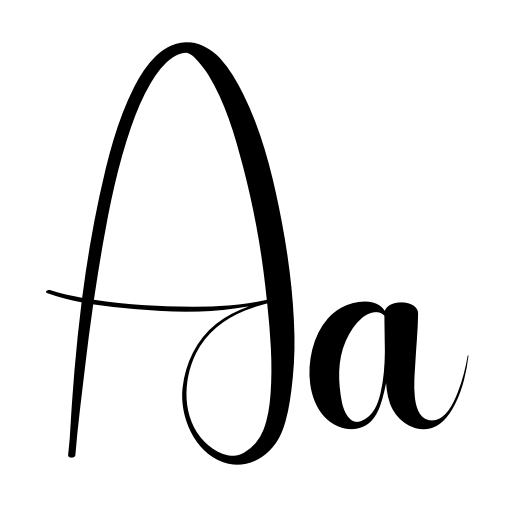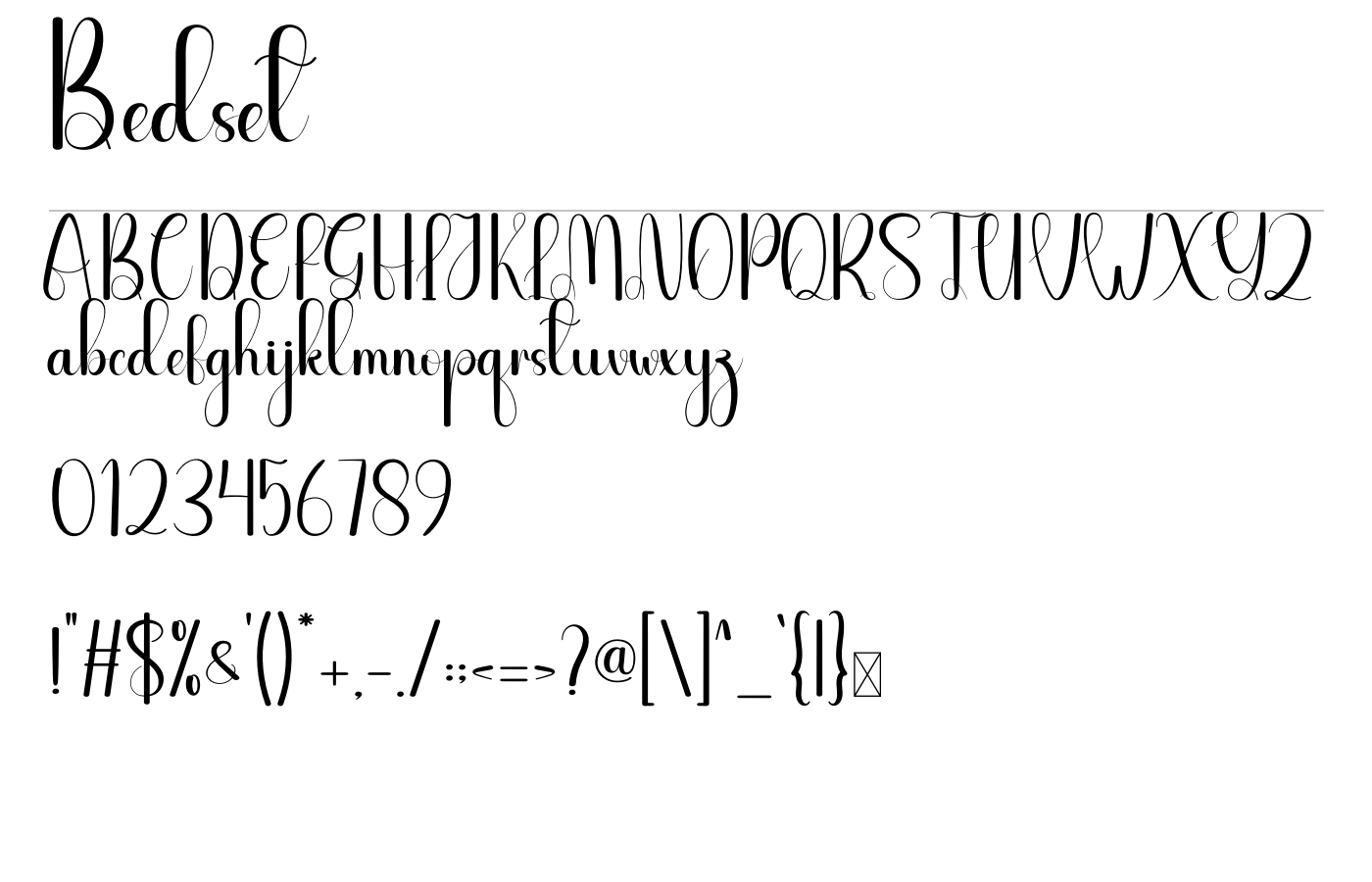
Bedset is a delicate and elegant script font with tall, slender letterforms and graceful loops that give it a refined, whimsical charm. Its thin strokes and decorative swashes make it perfect for invitations, branding, and headings where a sophisticated, feminine touch is desired. This font works best in designs that aim for a stylish and artistic feel, adding a unique flair to fashion, beauty, or luxury projects.
Bedset Font
About Bedset Font